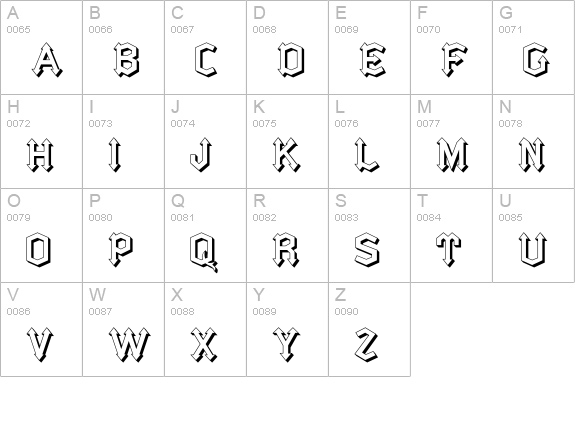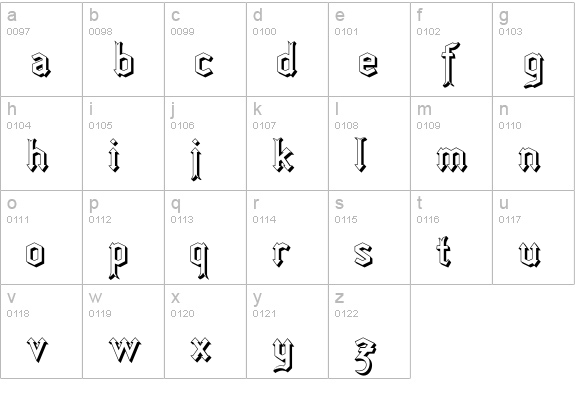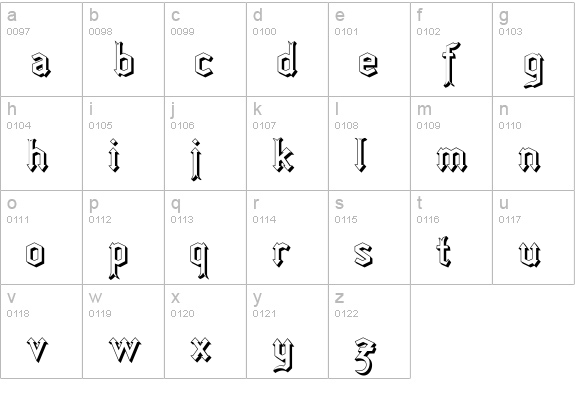
ArrowheadLakeShadows Font Details
ArrowheadLakeShadows is a breathtakingly beautiful font that captures the essence of nature's tranquility and elegance. Its intricate and delicate design pays homage to the mesmerizing shadows cast by the majestic arrowhead-shaped lake at dusk. This font is a true embodiment of grace, with its flowing lines and subtle curves. ArrowheadLakeShadows is not only a visually stunning font but also a versatile one. It can be used to add a touch of sophistication to various design projects, such as logos, branding materials, invitations, and more. Its unique and captivating style effortlessly captivates the viewer's attention and leaves a lasting impression. What makes ArrowheadLakeShadows even more remarkable is that it is freely available to download at FontsMarket.com. This means that anyone can enjoy the beauty and elegance of this font without any cost. Its accessibility adds to its appeal, making it a go-to choice for designers and enthusiasts alike. Whether you are a professional designer or a hobbyist, ArrowheadLakeShadows is a font that will undoubtedly elevate your creative projects to new heights. Its timeless beauty and free availability make it a must-have in your font collection. So, download ArrowheadLakeShadows today from FontsMarket.com and let your designs flourish with its enchanting charm.